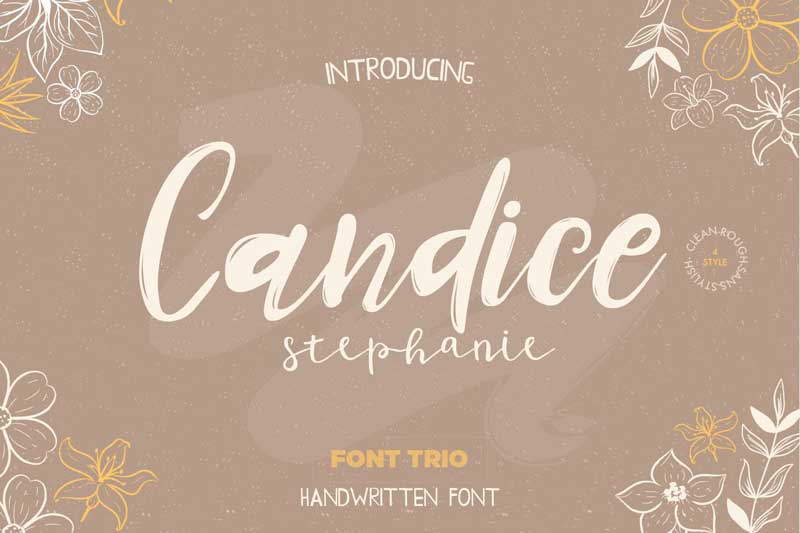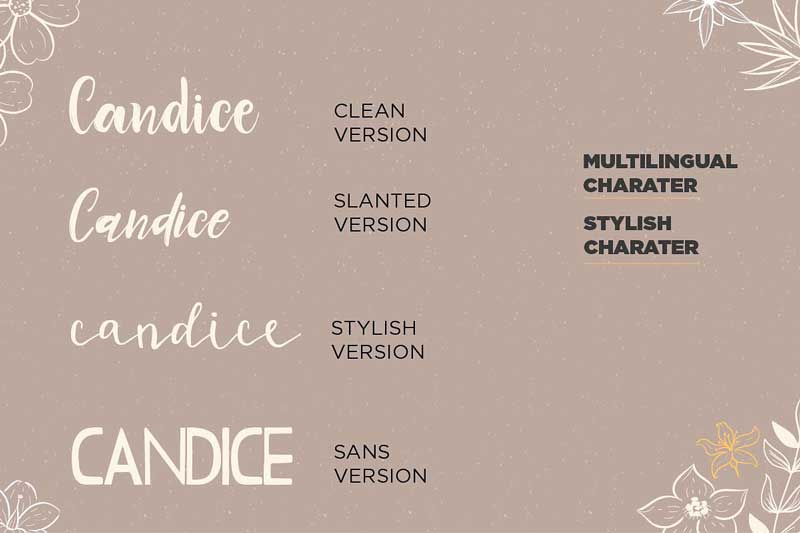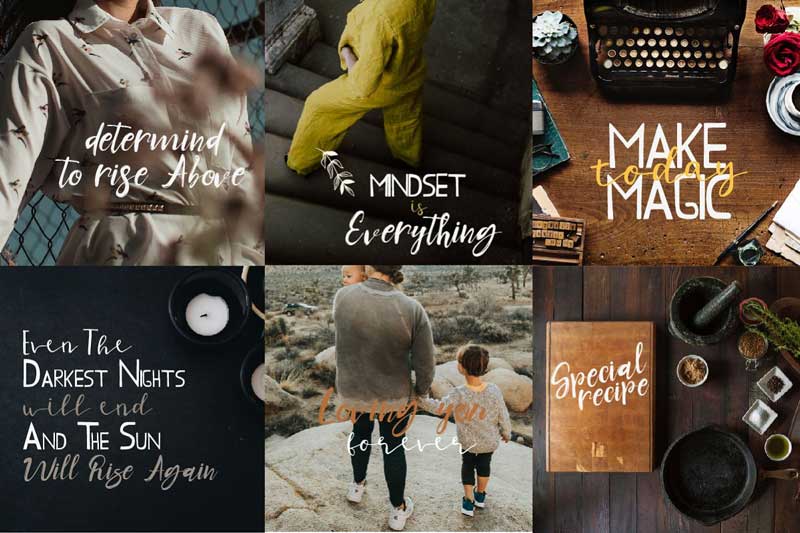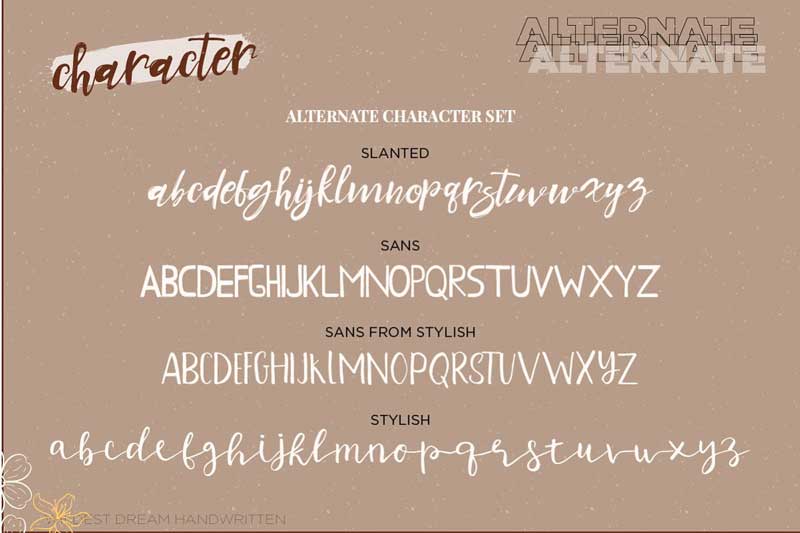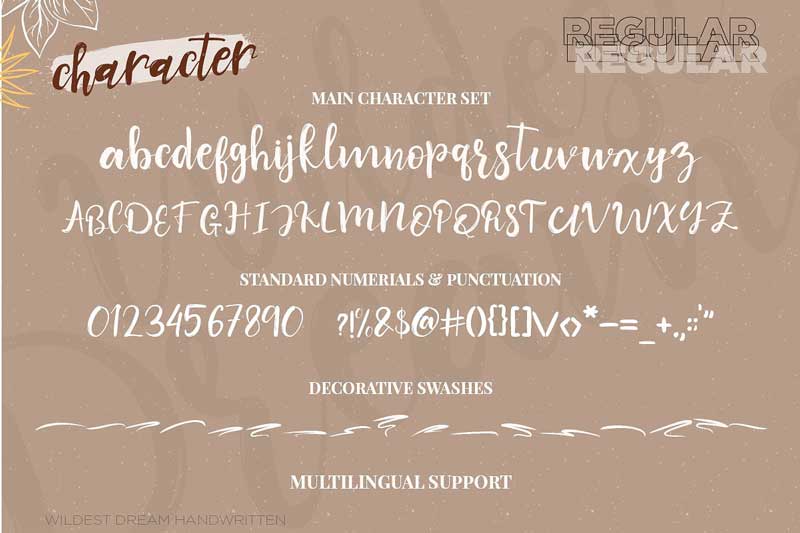
Candice Trio Font 4605966
Candice Trio Fonts is a fresh handwritten Script font brush, elegant feel character set. The Candice font includes a full set capital and lowercase letters, as well as multi-lingual support, currency figures, numerals, & punctuation and swash.
Candice can be used for various projects such as invitations, stationery, social media, logos, weddings, branding, graphic design, and can be combined with various types of serif fonts to perfect the project you want to work on.